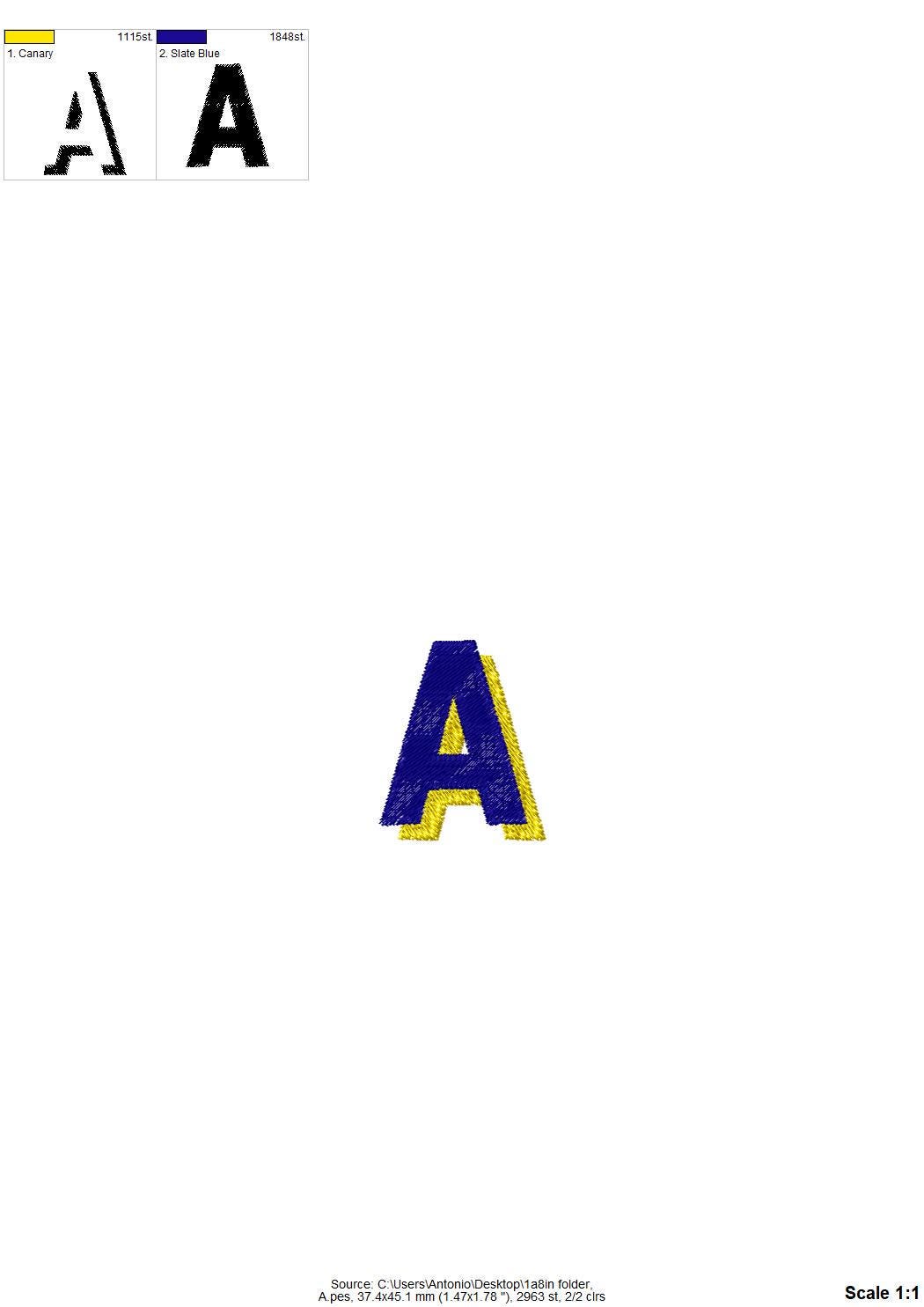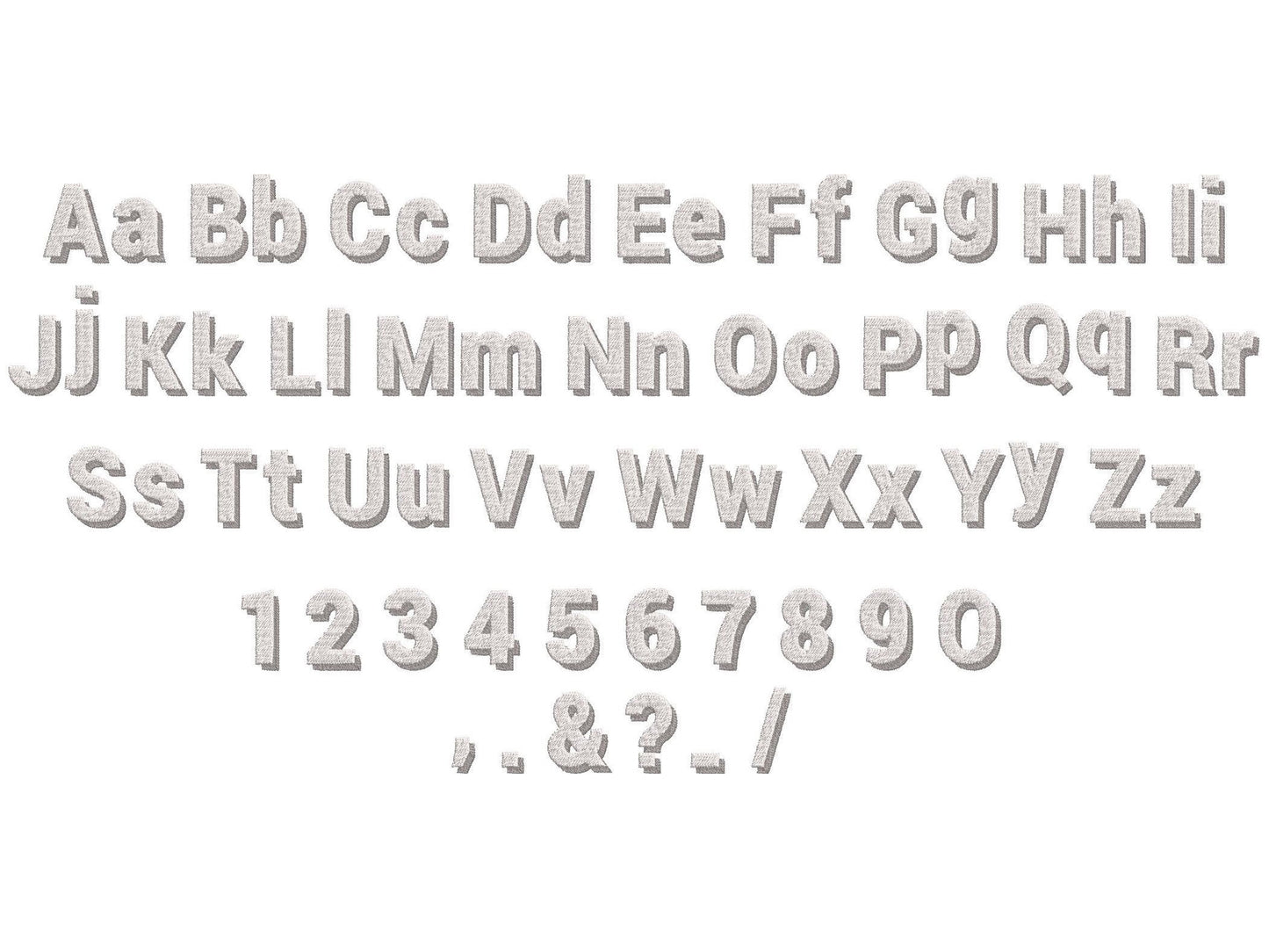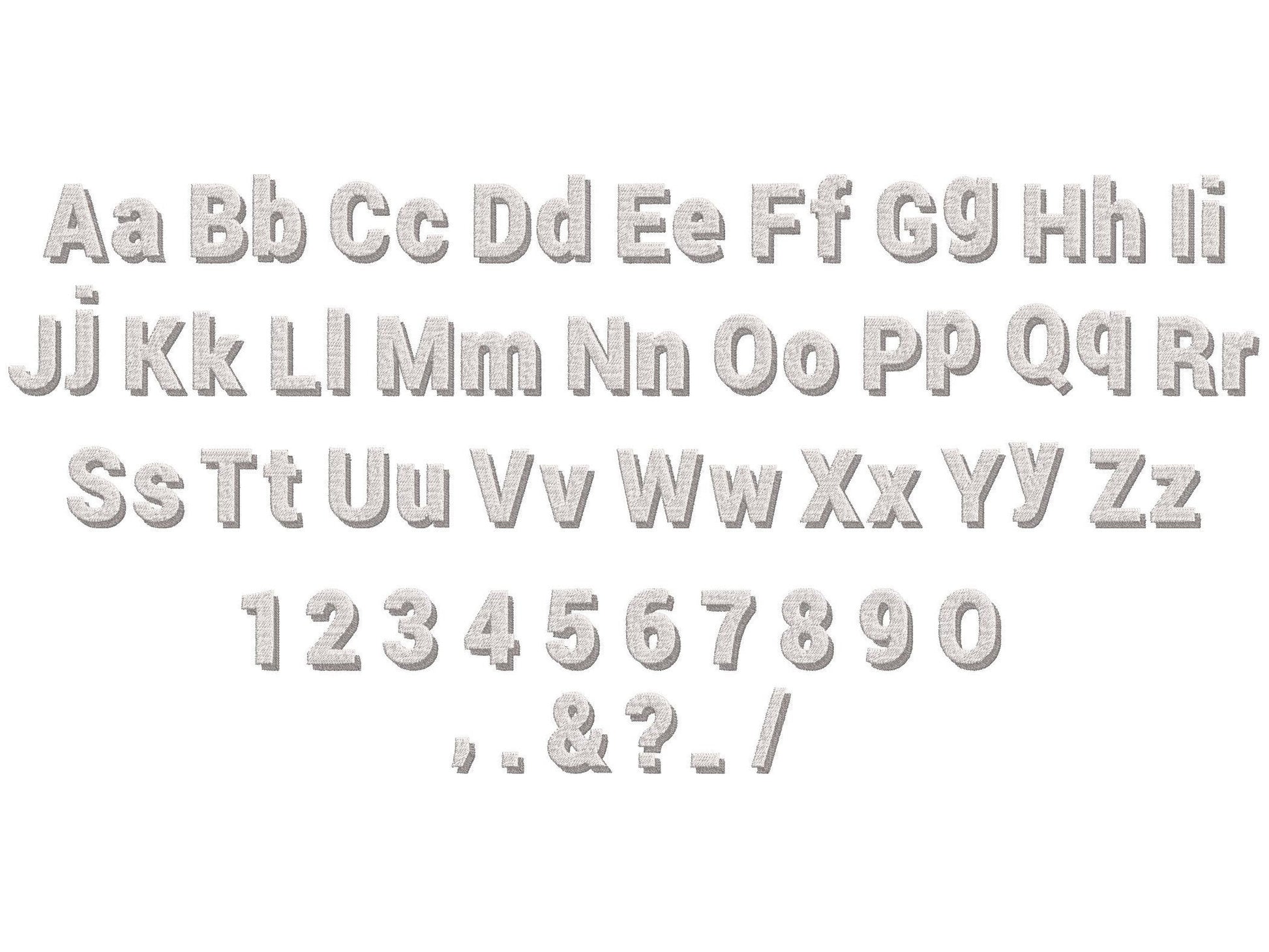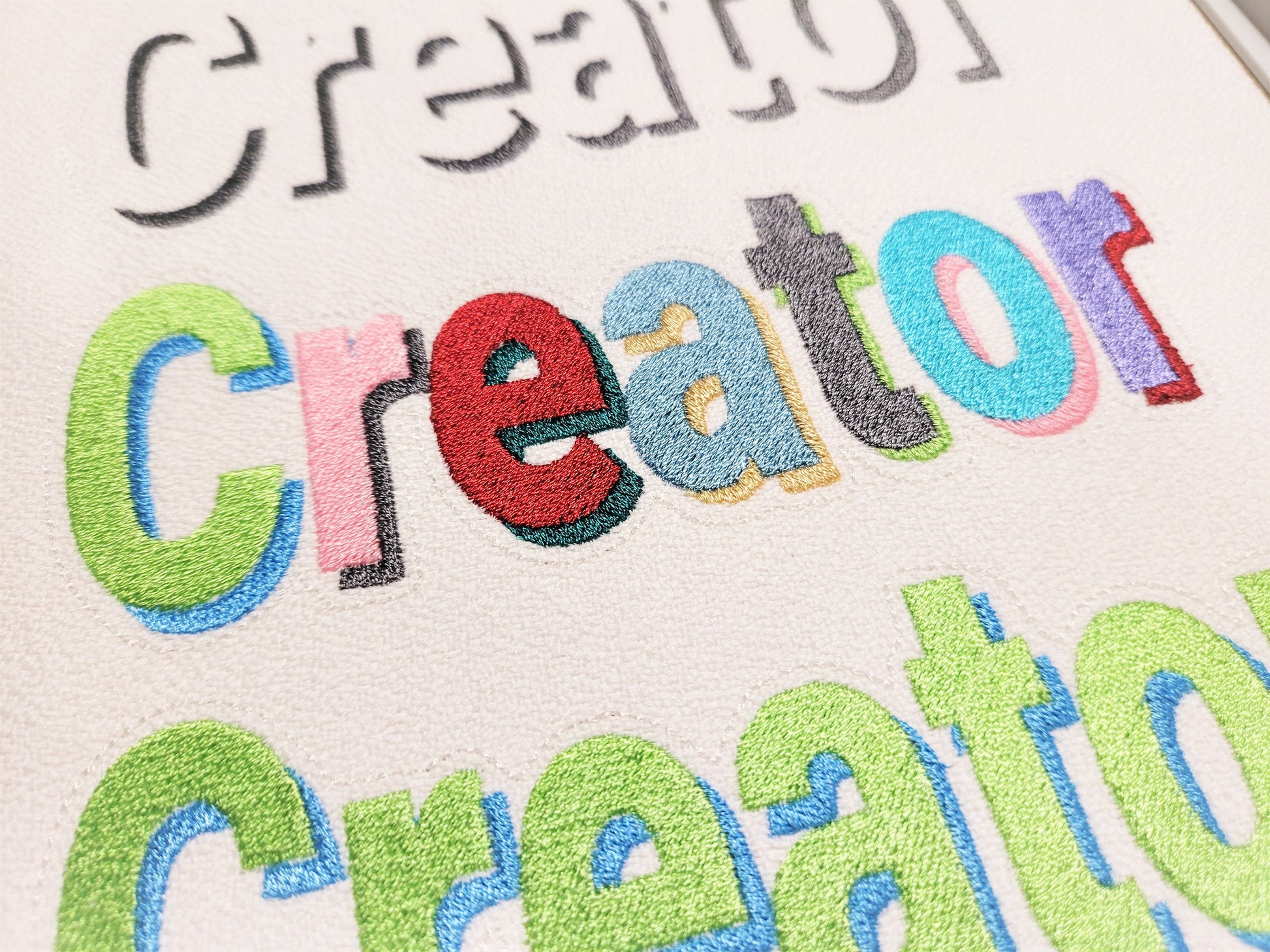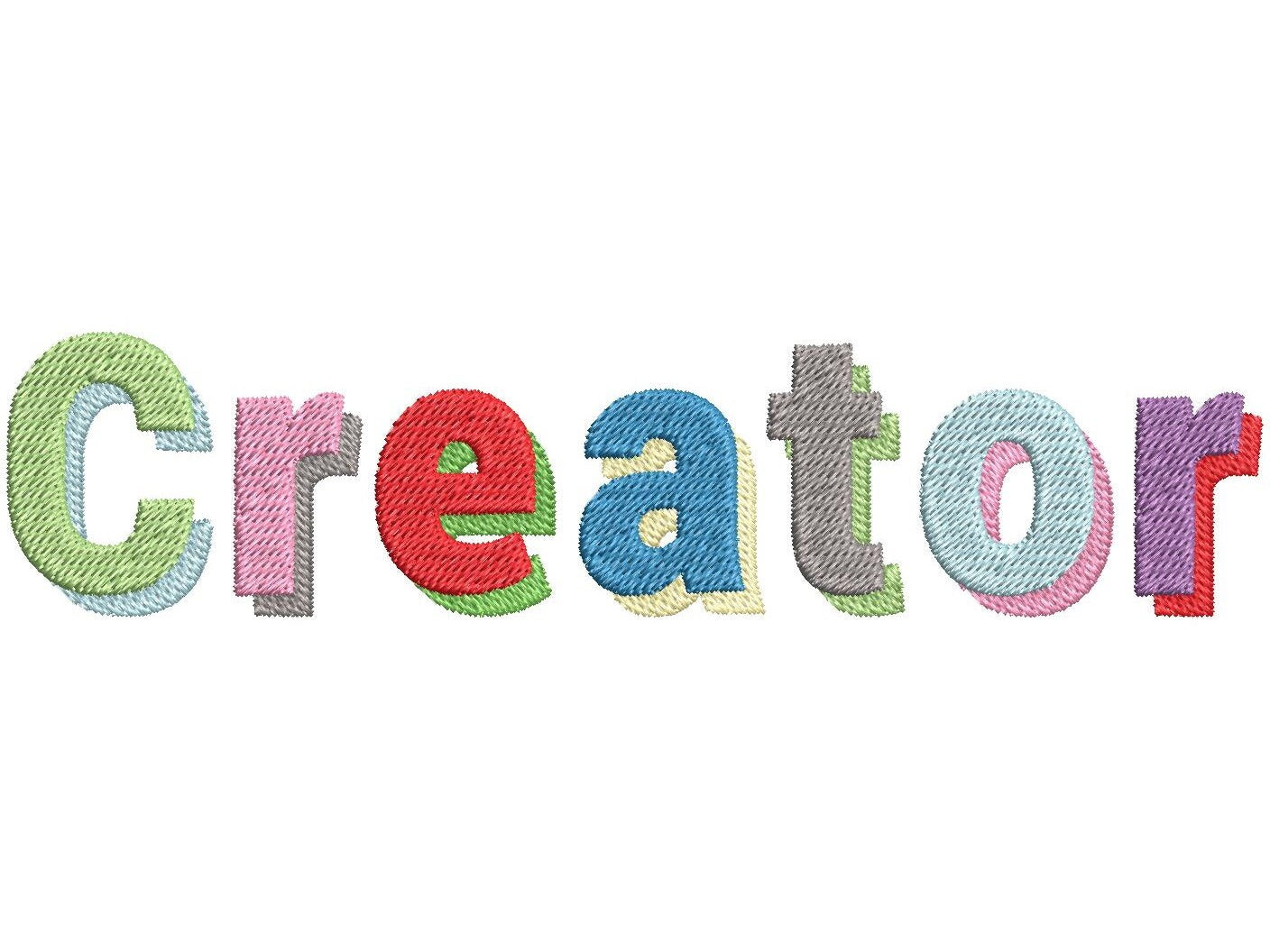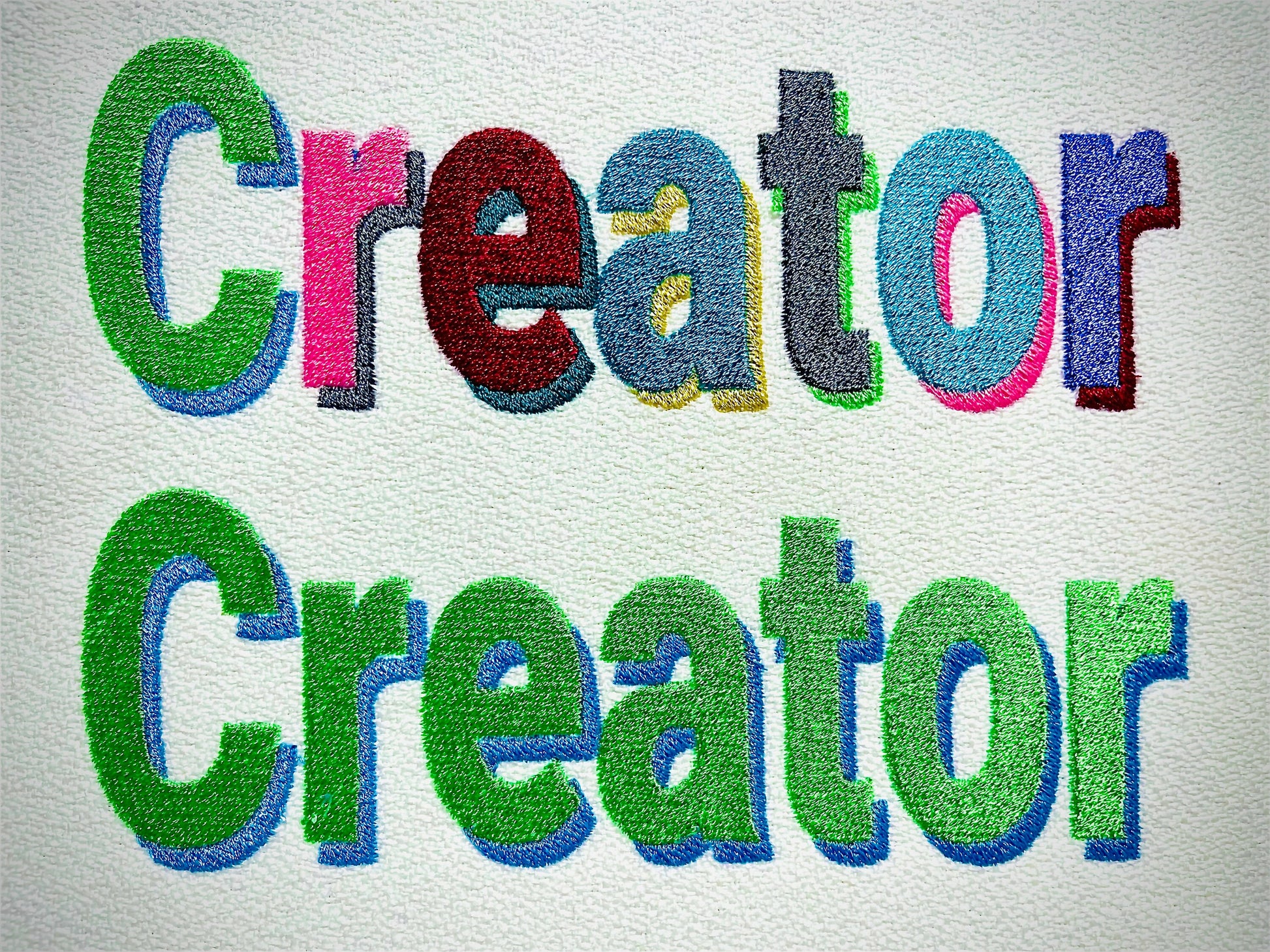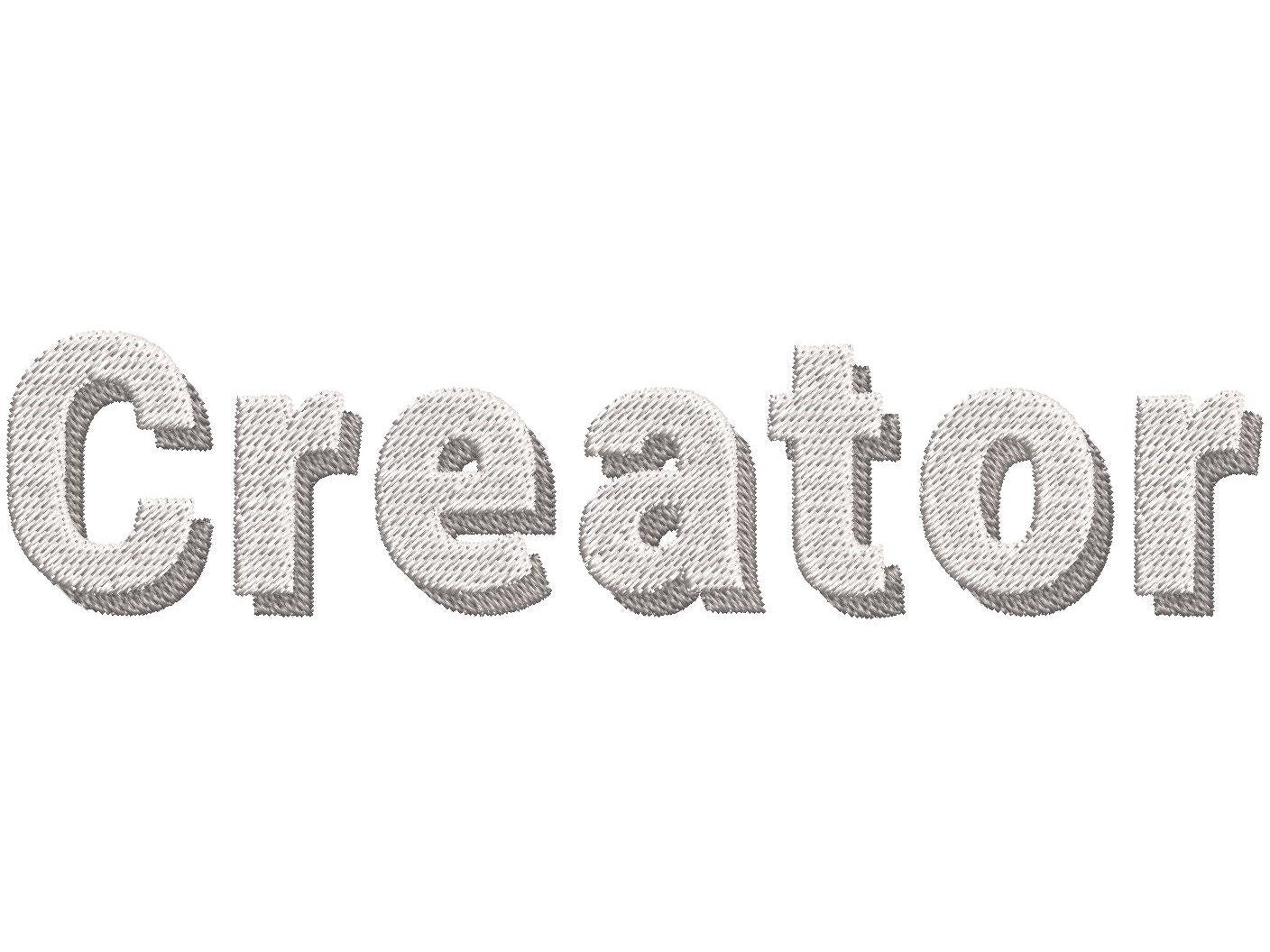
Or click to open the linkA playful block font with a shadow, in fill stitch. Fun for kids' names, sports shirts, bags and monograms.
Uppercase and lowercase letters, numbers 0 to 9 and punctuation. Six sizes: 0.8, 1, 1.4, 1.8, 2.3 and 3 inches. Each letter has a contrasting shadow.